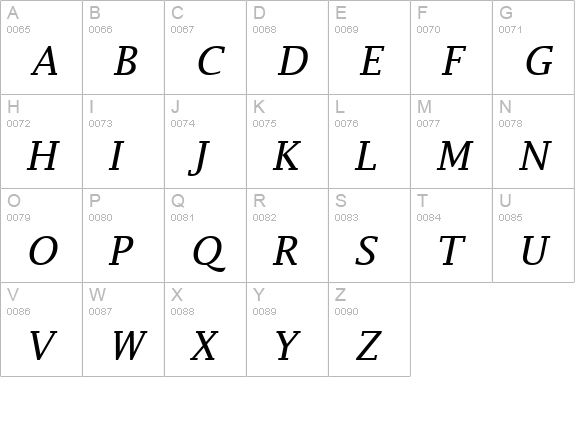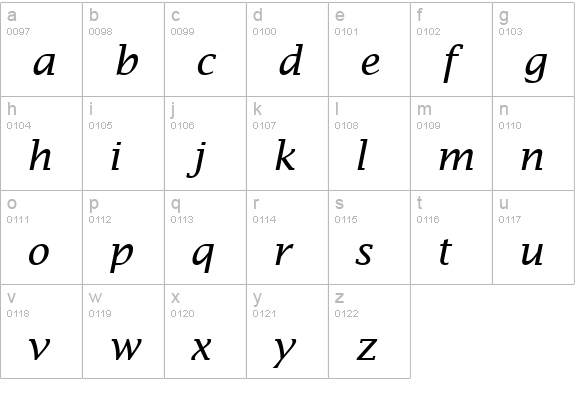
Lucida Fax Italic Font Details
Lucida Fax Italic is a distinctive, italic variant in the Lucida typeface family \xE2\x80\x94 well suited to design and typography projects.
Lucida Fax Italic font is a graceful and elegant typeface that exudes a sense of sophistication and professionalism. Its slanted design adds a touch of flair to any text, making it perfect for adding a stylish twist to your projects. The italicized characters flow smoothly, creating a harmonious and visually appealing look. What sets Lucida Fax Italic font apart is not only its timeless beauty but also the fact that it is freely available to download at FontsMarket.com. This means you can easily access this exquisite font and use it to elevate your designs without any additional cost. Whether you're working on a branding project, invitations, or any other creative endeavor, Lucida Fax Italic font is sure to add a touch of class and refinement. Download it today and let your creativity soar with this exquisite typeface.